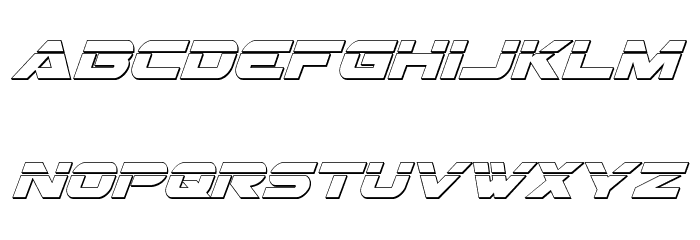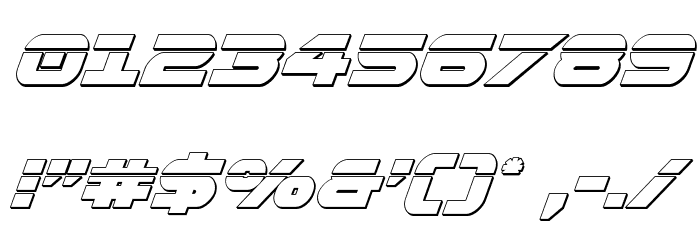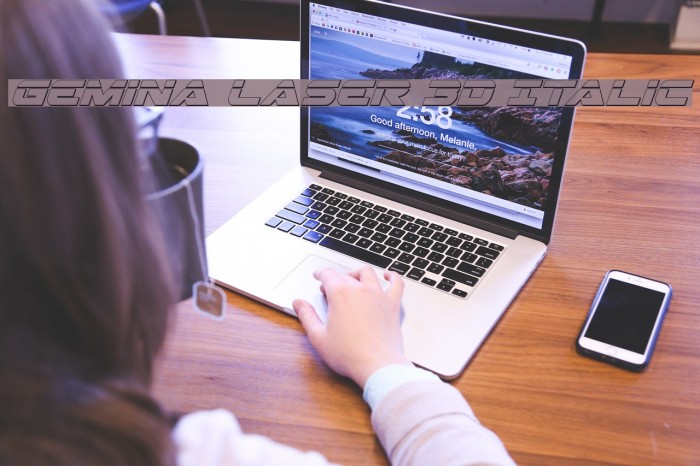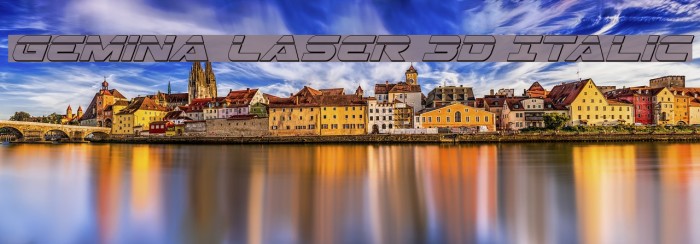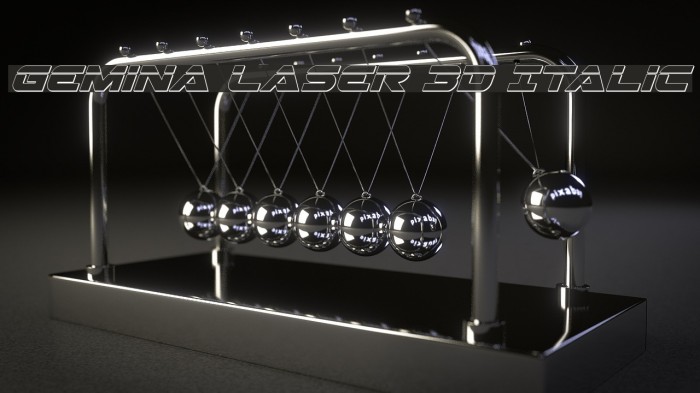
Gemina Laser 3D Italic Font
This font features a futuristic, angular design with a 3D effect that gives it a dynamic and modern appearance. The characters are italicized, adding a sense of motion and speed. The geometric shapes and sharp edges create a high-tech aesthetic, reminiscent of digital or sci-fi themes. The font is outlined, which enhances its three-dimensional look, making it stand out in any design. It is well-suited for projects that require a bold, eye-catching typeface with a contemporary feel.
A futuristic, italicized font with a 3D effect and angular design.
- Proposed Projects: Ideal for sci-fi movie posters, video game titles, tech branding, and futuristic event flyers.